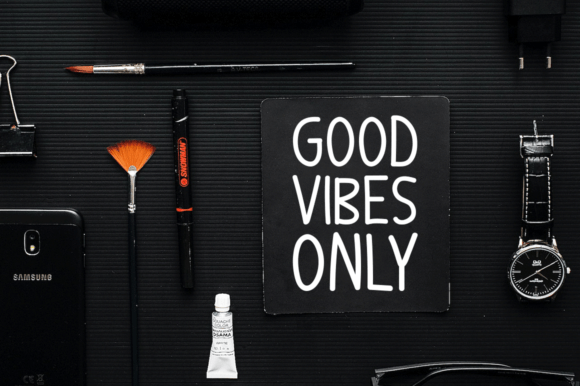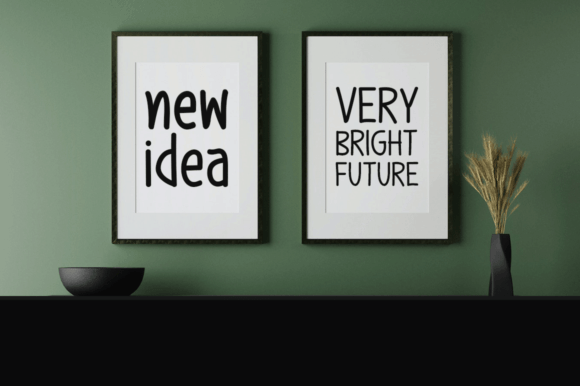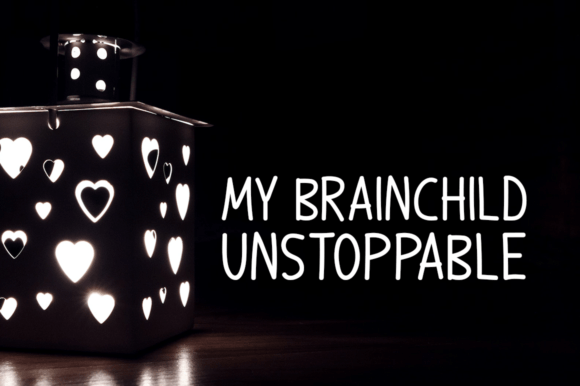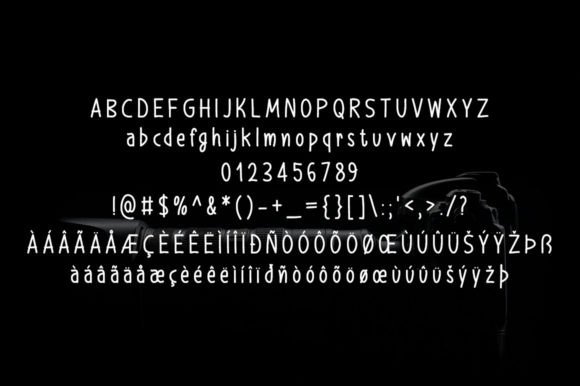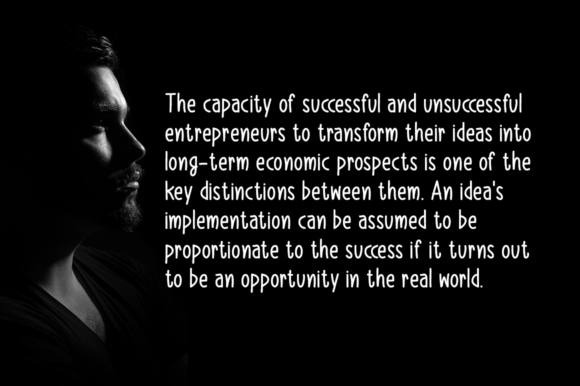
Unleashing Your Inner Creativity with Brainchild Font
Have you ever stared at a blank page, trying to bring your ideas to life, only to be met with a sea of blankness? It’s a familiar feeling for many creatives. But what if you had the perfect tool to spark your imagination and bring your vision to life? That’s where the Brainchild Font comes in – a beautiful, handwritten typeface designed to add a personal touch to your projects.
Brainchild Font is more than just a font – it’s a key to unlocking your creativity. With its simple yet elegant lettering, it’s the perfect addition to any project, from marketing materials to social media graphics. Its versatility makes it a valuable asset for designers, allowing them to experiment with different styles and ideas. Whether you’re a seasoned pro or just starting out, the Brainchild Font is sure to inspire you to new heights.
Key Features of Brainchild Font
- Font Family: Brainchild is a sans-serif font family with 8 styles, each with its unique characteristics.
- Language Support: Brainchild supports a wide range of languages, including Latin, Cyrillic, and Greek scripts, making it suitable for multilingual applications.
- Unique Characteristics: The font features a modern and clean design with subtle rounded corners, giving it a friendly and approachable feel.
- Font Weight and Style Options: Brainchild includes light, regular, medium, bold, and black styles, as well as italic and condensed variants for added flexibility.
Brainchild Font Review
As a designer, I’ve had the chance to work with various fonts, but Brainchild Font stands out in its own way. The first thing that caught my attention is its ✨ unique blend of modern and vintage elements. The font’s curves and lines are well-balanced, making it suitable for a wide range of applications, from print materials to digital interfaces.
- ✨ Versatility: Brainchild Font can be used in various contexts, from formal to informal designs.
- ✨ Readability: The font is legible even at small sizes, making it perfect for body text.
- ✨ Aesthetic appeal: The font’s unique design elements add a touch of sophistication to any design.
- ⚠️ Limited character set: Brainchild Font doesn’t support a wide range of languages, which may be a concern for designers working on multilingual projects.
- ⚠️ Limited web font support: While the font is available for web use, it may not render consistently across all browsers and devices.
Overall, Brainchild Font is a solid choice for designers looking for a unique and versatile font. While it has its limitations, its strengths make it worth considering for your next project.
Getting the Most Out of Brainchild Font
Experiment with different font sizes, colors, and styles to create a unique look.
Use Brainchild Font in combination with other fonts to create a visually appealing design.
Play with the font’s bold and italic styles to add emphasis and create hierarchy.
Brainchild Font is perfect for:
Headlines and titles
Blog posts and articles
Social media graphics
Business presentations and reports
Alternative Fonts to Brainchild Font for Designers
Lato is a modern sans-serif font that is highly legible and versatile. It is perfect for use in digital media, such as websites, mobile apps, and digital signage. Lato is similar to Brainchild Font in its clean and minimalist design, but it has a more subtle feel and is less bold.
Comparison to Brainchild Font: While Brainchild Font is more playful and energetic, Lato is more professional and sophisticated.
Open Sans is a highly legible sans-serif font that is designed for digital use. It is a popular choice for web design, mobile apps, and digital marketing materials. Open Sans is similar to Brainchild Font in its friendly and approachable feel, but it is more straightforward and lacks the bold, playful feel of Brainchild Font.